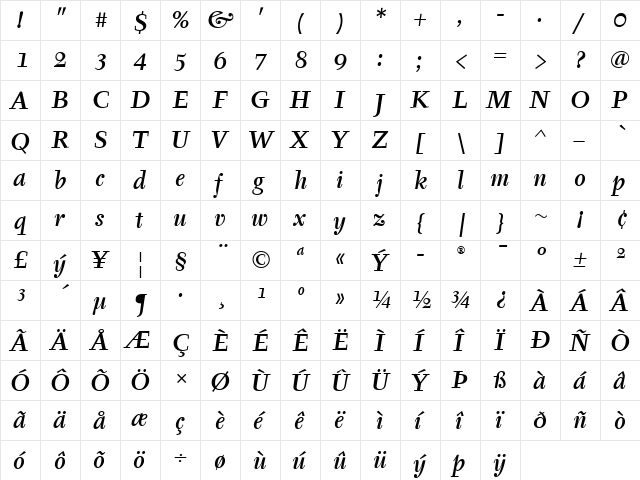
Tyfa ITC Medium Italic
Design Context for Tyfa ITC Typeface
Tyfa ITC takes a measured approach to typography — its balanced proportions and neutral character make it a reliable workhorse for both digital and print work. Its italic angle brings a sense of urgency and motion to the letterforms.
Pro Tip: Use Tyfa ITC for emphasis, pull quotes, and subheadings where its slanted energy can add rhythm to the layout.